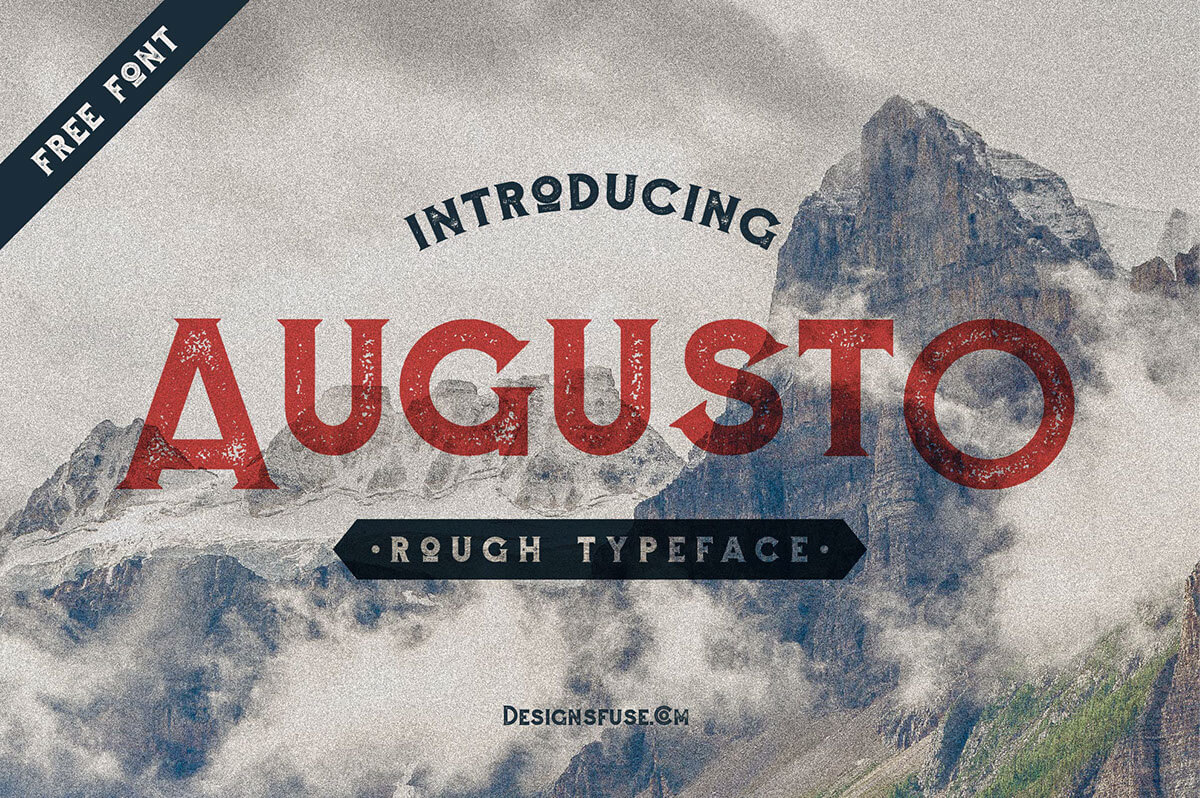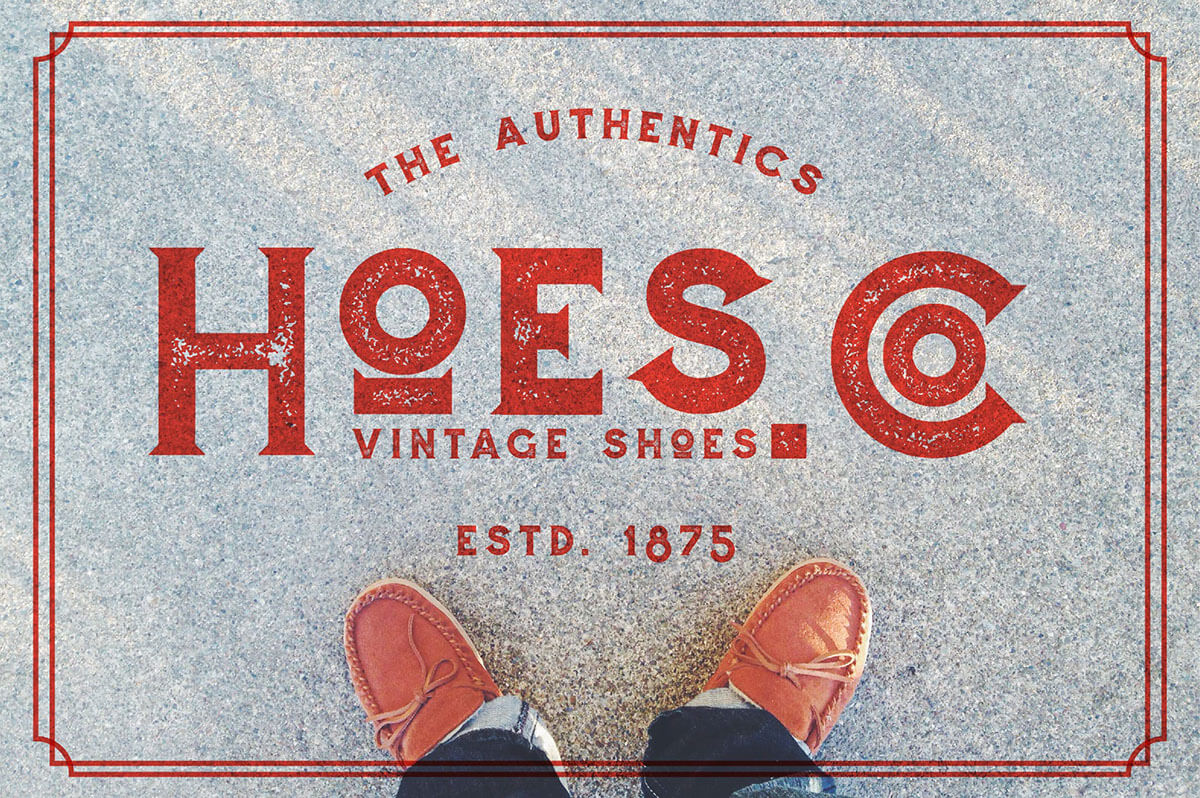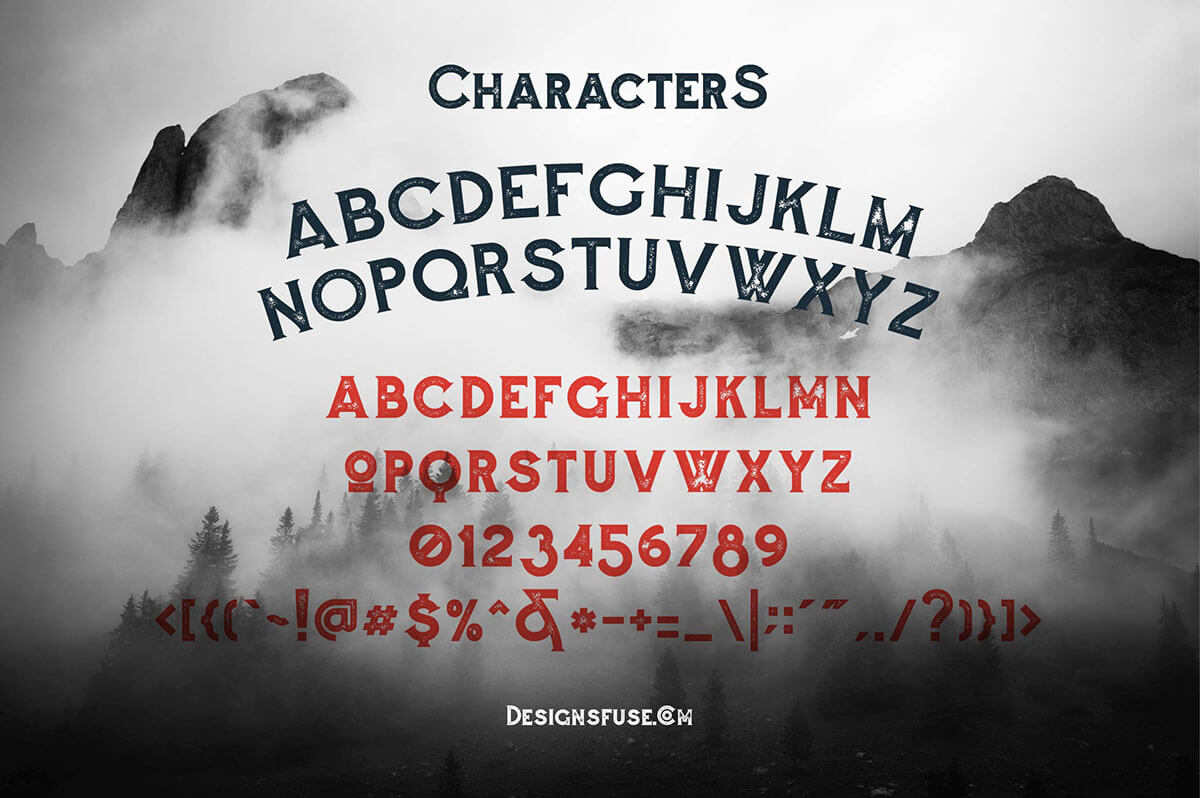
Augusto Rough it’s a free typeface with a peculiar vintage look
Augusto Rough it’s a free typeface with a peculiar vintage look. It’s strong and rough with a retro touch and looks cool for some specific graphic styles. It’s free, so if you like it, don’t forget to give some good feedback to the author.
Augusto Rough free font
Augusto free font
Augusto Rough typeface characters